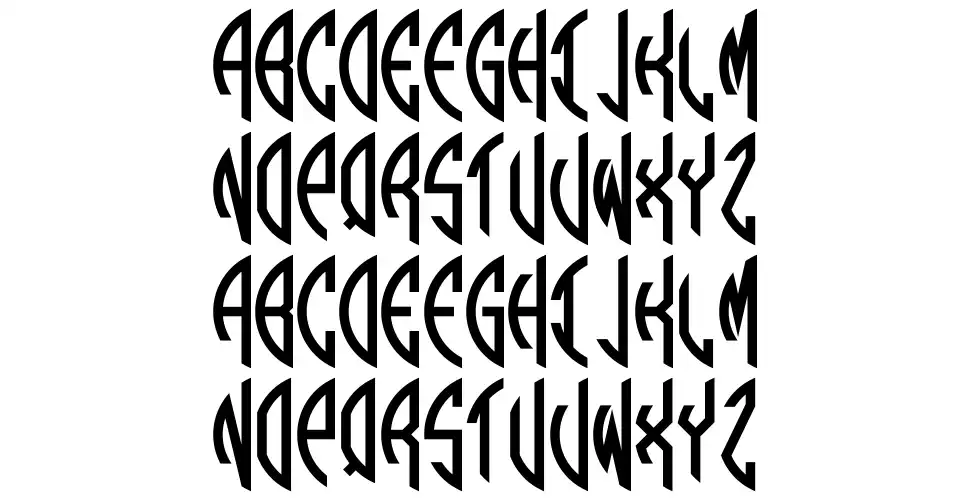
Round Monogram Font
Round Monogram Font - Round monogram font | dafont.com english français español deutsch italiano português. You can select either 2, 3, or 4 initials. Round monogram is a fancy type font that can be used on any device such as pc, mac, linux, ios and android. Round monogram font download is available free from. This font has 3 variant available. Round monogram font download is available free from 8font.com. Our free online circle monogram maker enables you to edit the initials, change the frame, and change the color of the letters and the frame. Round monogram font is a fancy, initials type font that can be used on any device such as pc, mac, linux, ios and.
This font has 3 variant available. Round monogram font | dafont.com english français español deutsch italiano português. You can select either 2, 3, or 4 initials. Round monogram font download is available free from 8font.com. Round monogram font download is available free from. Round monogram is a fancy type font that can be used on any device such as pc, mac, linux, ios and android. Round monogram font is a fancy, initials type font that can be used on any device such as pc, mac, linux, ios and. Our free online circle monogram maker enables you to edit the initials, change the frame, and change the color of the letters and the frame.
You can select either 2, 3, or 4 initials. This font has 3 variant available. Round monogram font is a fancy, initials type font that can be used on any device such as pc, mac, linux, ios and. Round monogram font download is available free from. Round monogram font download is available free from 8font.com. Round monogram is a fancy type font that can be used on any device such as pc, mac, linux, ios and android. Round monogram font | dafont.com english français español deutsch italiano português. Our free online circle monogram maker enables you to edit the initials, change the frame, and change the color of the letters and the frame.
Round monogram font download is available free from 8font.com. Round monogram font download is available free from. This font has 3 variant available. Round monogram font | dafont.com english français español deutsch italiano português. Round monogram is a fancy type font that can be used on any device such as pc, mac, linux, ios and android.
Round monogram font is a fancy, initials type font that can be used on any device such as pc, mac, linux, ios and. You can select either 2, 3, or 4 initials. Round monogram font | dafont.com english français español deutsch italiano português. Round monogram font download is available free from. This font has 3 variant available.
Circle Monogram Font in TTF and OTF formats Cricut fonts Cricut files
Round monogram font is a fancy, initials type font that can be used on any device such as pc, mac, linux, ios and. Round monogram font | dafont.com english français español deutsch italiano português. Our free online circle monogram maker enables you to edit the initials, change the frame, and change the color of the letters and the frame. You.
Round Monogram font by FreeSVGDesigns FontRiver
Round monogram font download is available free from. Our free online circle monogram maker enables you to edit the initials, change the frame, and change the color of the letters and the frame. Round monogram font download is available free from 8font.com. Round monogram font is a fancy, initials type font that can be used on any device such as.
Free SVG Files SVG, PNG, DXF, EPS Zig Zag Round Monogram Font
Round monogram font is a fancy, initials type font that can be used on any device such as pc, mac, linux, ios and. Round monogram font download is available free from 8font.com. Round monogram is a fancy type font that can be used on any device such as pc, mac, linux, ios and android. Round monogram font download is available.
Round Monogram Font Download
Our free online circle monogram maker enables you to edit the initials, change the frame, and change the color of the letters and the frame. Round monogram font download is available free from. This font has 3 variant available. Round monogram is a fancy type font that can be used on any device such as pc, mac, linux, ios and.
Round Monogram Font Dafont Free
Round monogram font | dafont.com english français español deutsch italiano português. Round monogram font is a fancy, initials type font that can be used on any device such as pc, mac, linux, ios and. Round monogram font download is available free from. This font has 3 variant available. Round monogram font download is available free from 8font.com.
Round Monogram Is A Fancy Type Font That Can Be Used On Any Device Such As Pc, Mac, Linux, Ios And Android.
Round monogram font download is available free from 8font.com. Round monogram font download is available free from. You can select either 2, 3, or 4 initials. Round monogram font | dafont.com english français español deutsch italiano português.
This font has 3 variant available. Round monogram font is a fancy, initials type font that can be used on any device such as pc, mac, linux, ios and.